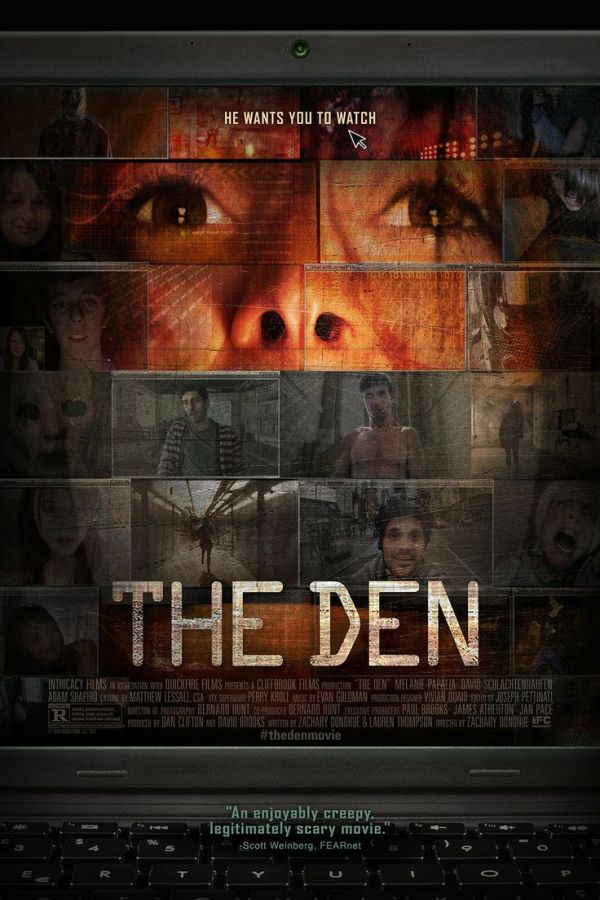
The Den Font
DramaThe Den is a 2013 horror/thriller movie about a young woman who becomes trapped in a mysterious website where she is hunted by a twisted individual.
The movie title on the poster uses OCR-A font, created by American Type Founders in 1968. It was one of the first typefaces to meet the standards set by the U.S. Bureau of Standards for optical character recognition. For more details please click here.